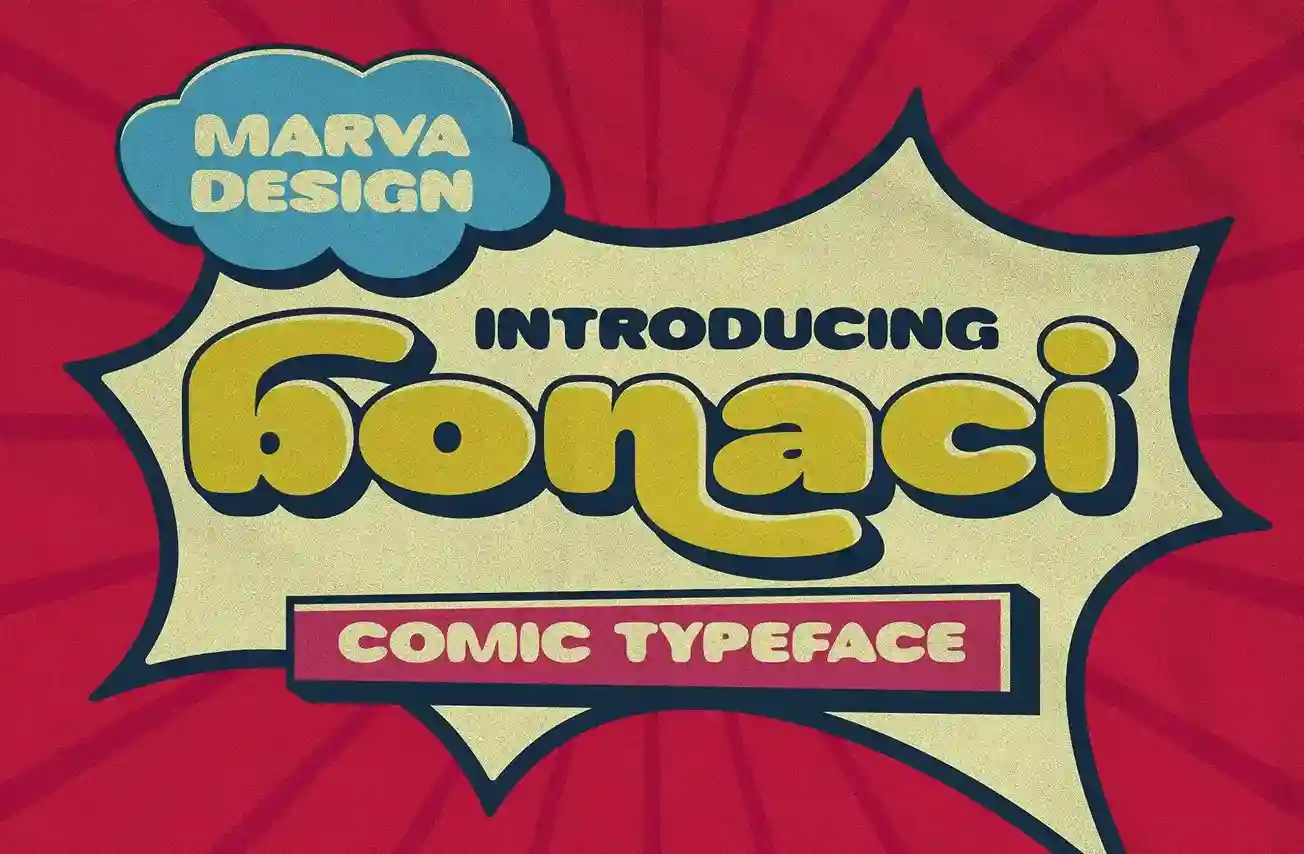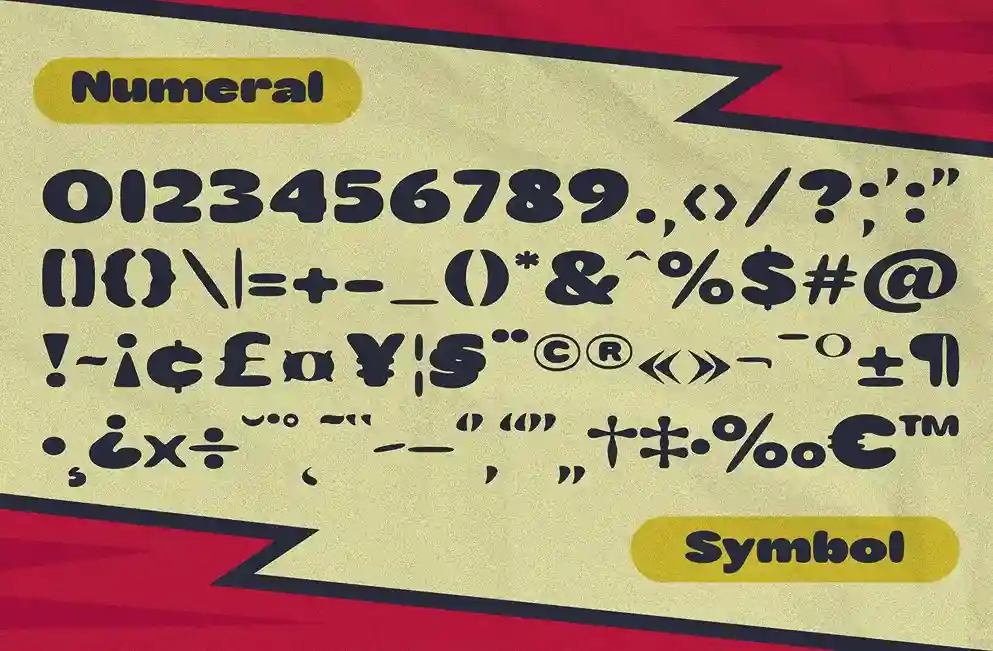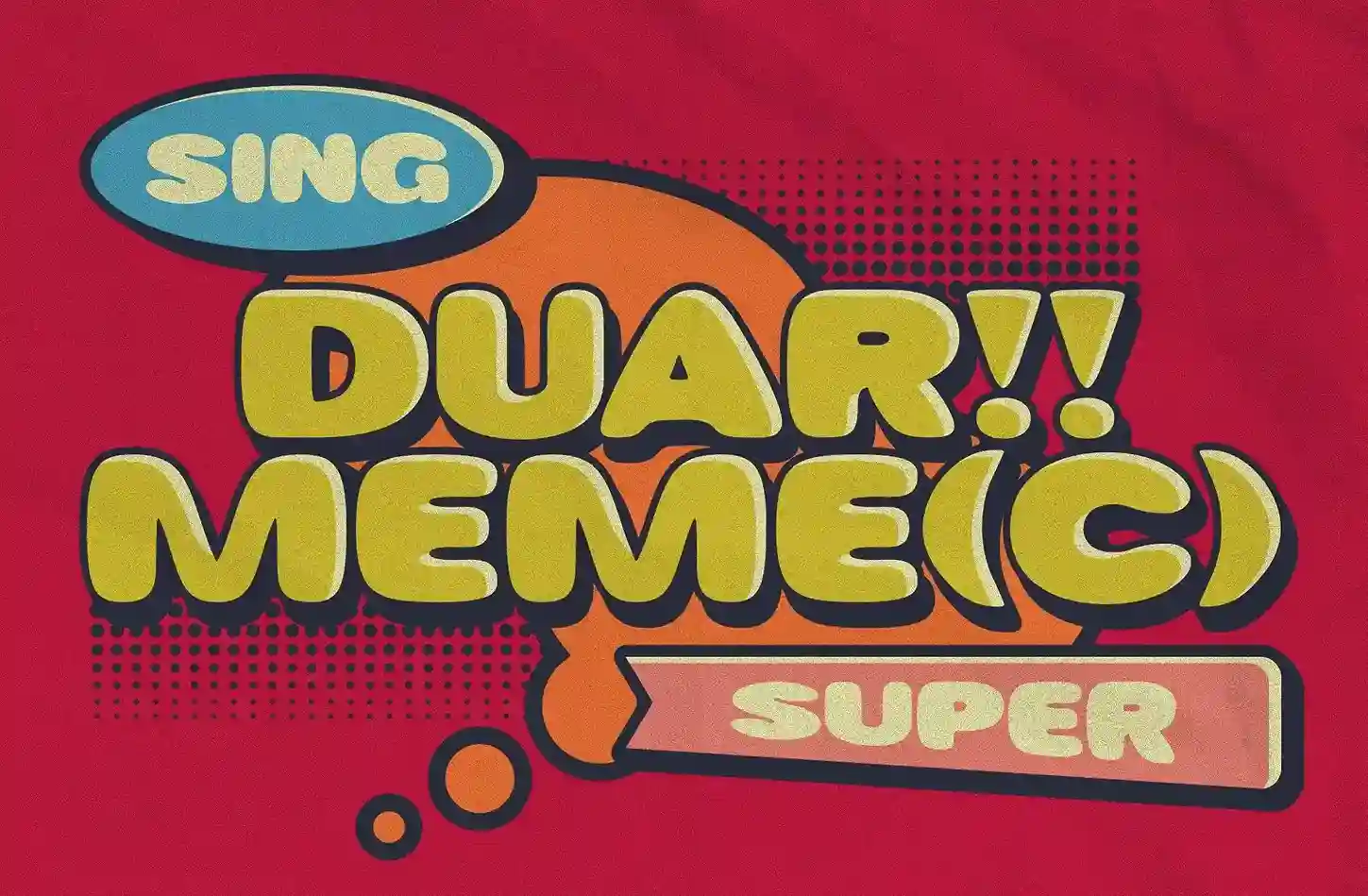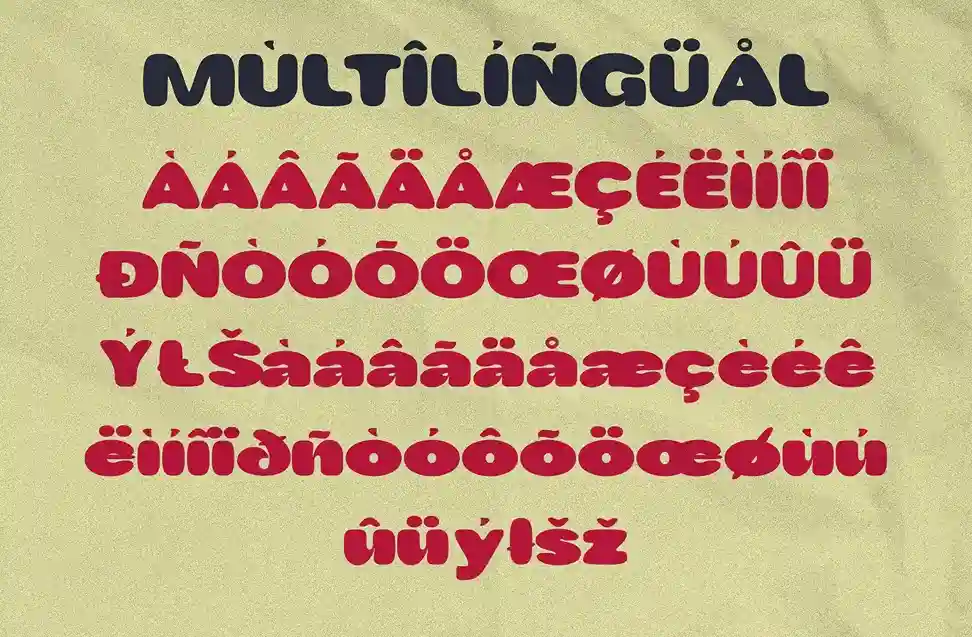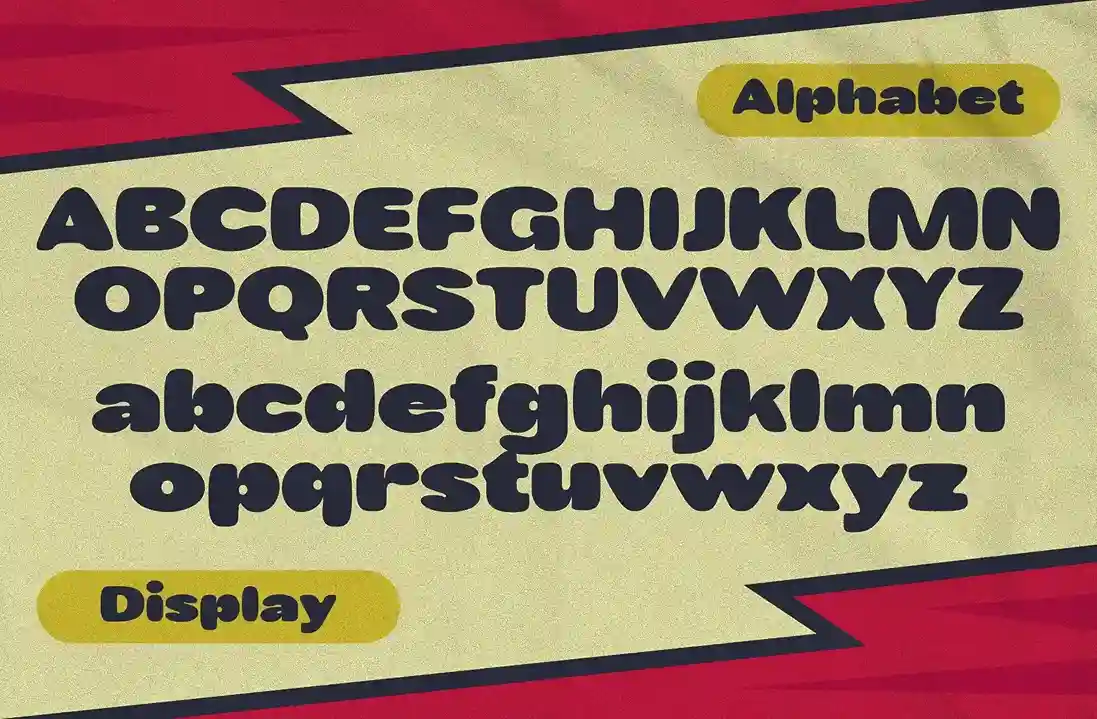
Bonaci Comic font is not just a display font—it’s a bold statement. Designed to pop off the page like a comic panel or a vintage candy wrapper, every character in Bonaci feels hand-painted, with thick strokes and rounded curves that radiate energy. This font is perfect for anyone looking to add fun, charm, and a nostalgic spark to their design projects.
Whether you’re crafting retro packaging, eye-catching posters, or vibrant brand identities, Bonaci brings an expressive punch to the table. Its lively personality makes it perfect for comic book titles, children’s book covers, cartoon logos, game titles, or even food and beverage branding that needs a cheerful twist.
This font comes with a full set of uppercase and lowercase letters, numerals, punctuation marks, and essential symbols. Plus, Bonaci offers multilingual support, making it a global design asset ready for your next bold creation. It works flawlessly across print and digital media, from t-shirts and flyers to social posts and motion graphics.
✦ Key Features:
✅ Bold comic-style typeface with rounded, expressive characters
✅ Uppercase, lowercase, numbers, symbols, and punctuation
✅ Multilingual support for diverse design needs
✅ Ideal for packaging, titles, logos, and branding
✦ Perfect For:
Comic book and cartoon title design
Retro-style food and candy packaging
Kids’ book covers and educational materials
Branding for fun, youth-driven businesses
Posters/flyers, and merchandise
Creative YouTube thumbnails and gaming content
Bonaci Comic Typeface helps your design stand out while keeping it warm and welcoming. It’s not just a font—it’s a vibe. Perfect for those who want to capture a playful spirit with a professional finish. And best of all? It’s absolutely free for both personal and commercial use.